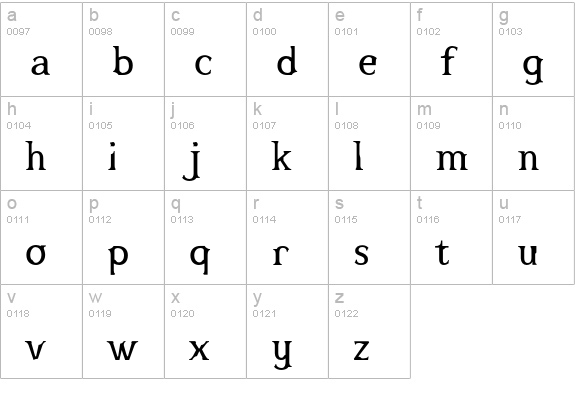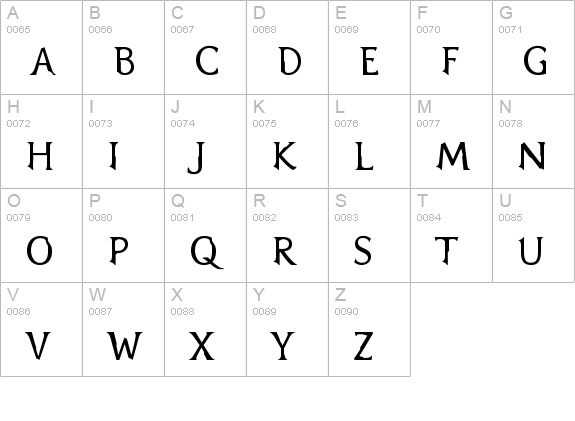
Introducing Pterra-dactyl font, a whimsical and playful typeface that will add a touch of fun to your designs. With its unique and quirky design, Pterra-dactyl is perfect for projects that require a lighthearted and creative approach. This font features charming dinosaur-inspired details that make it stand out from the crowd. But the best part? Pterra-dactyl font is available for free download at FontsMarket.com! That's right, you can add this delightful font to your collection without spending a dime. Whether you're working on a children's book, a birthday invitation, or a school project, Pterra-dactyl font is sure to bring a sense of joy and playfulness to your work. So why wait? Download Pterra-dactyl font today and let your creativity take flight!